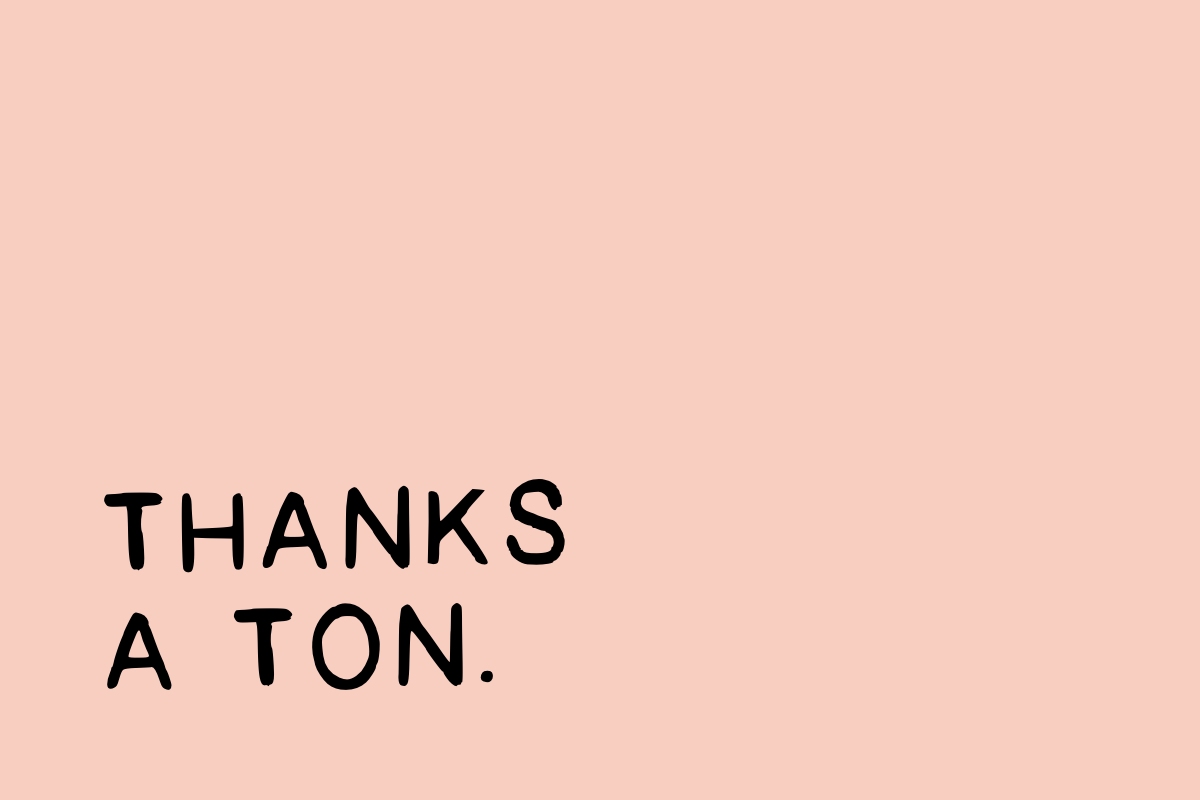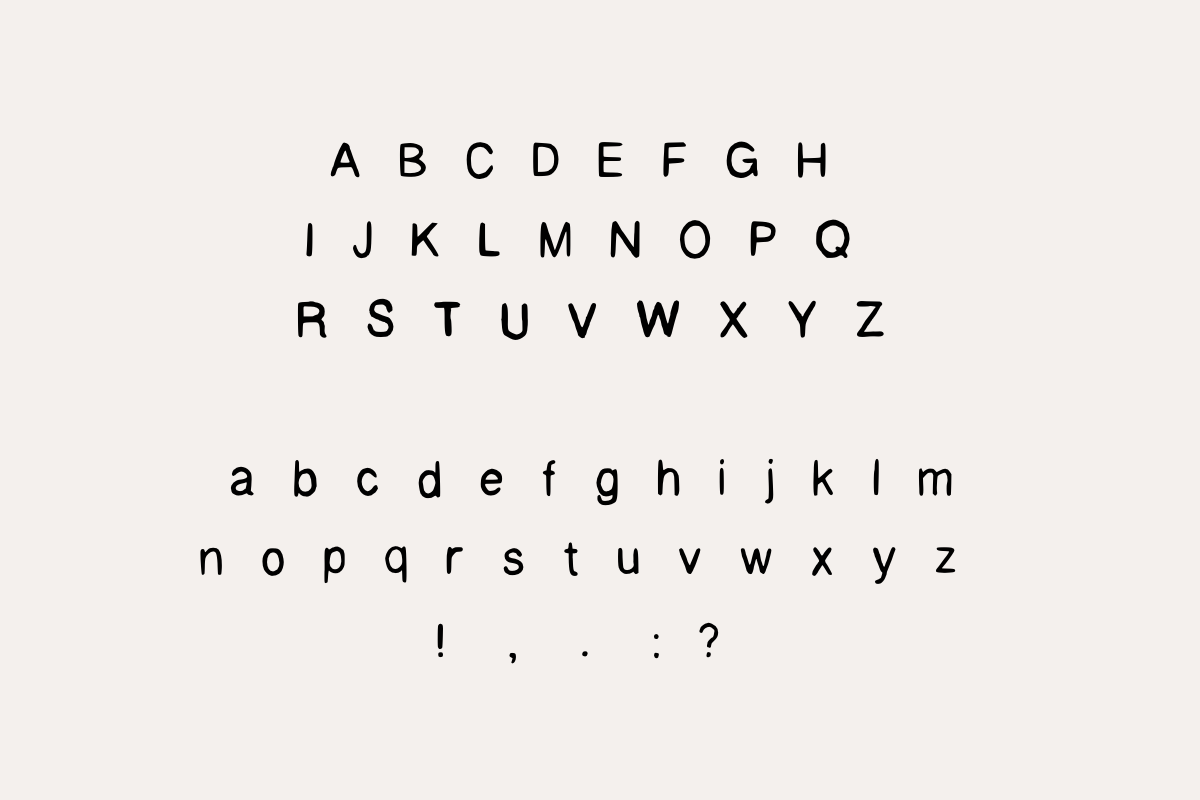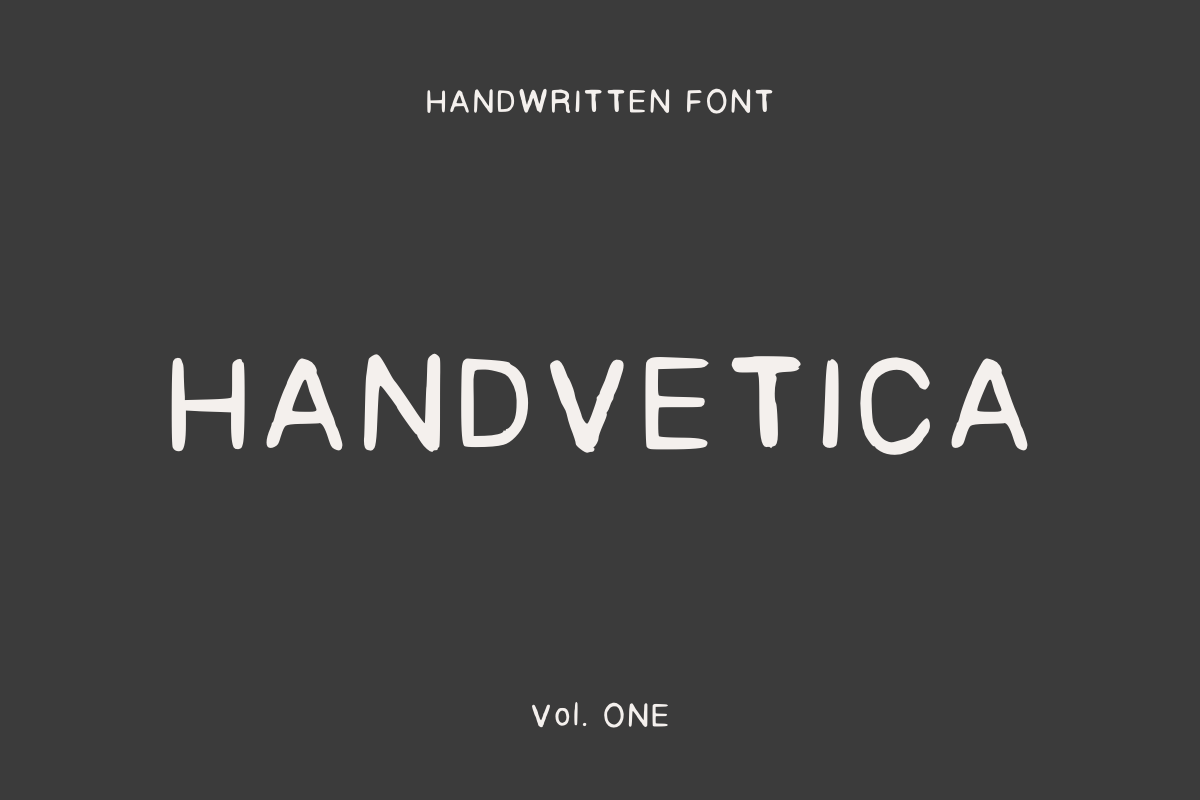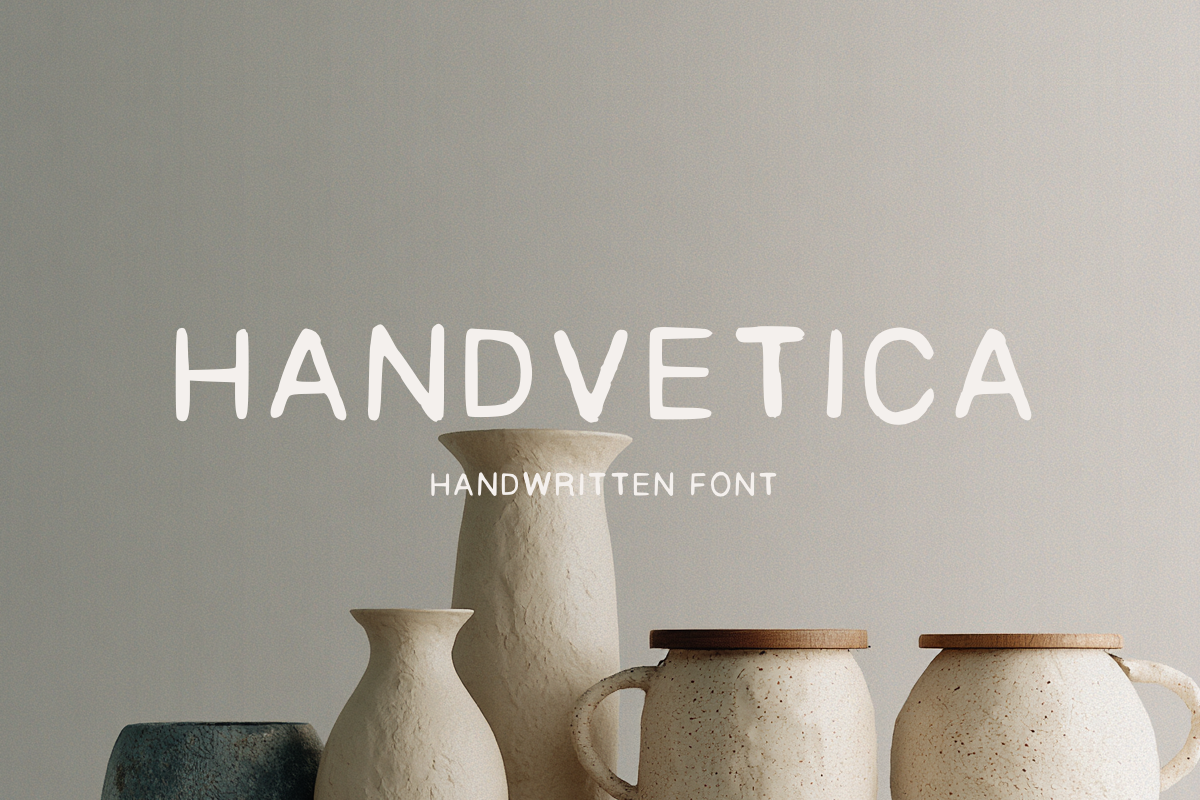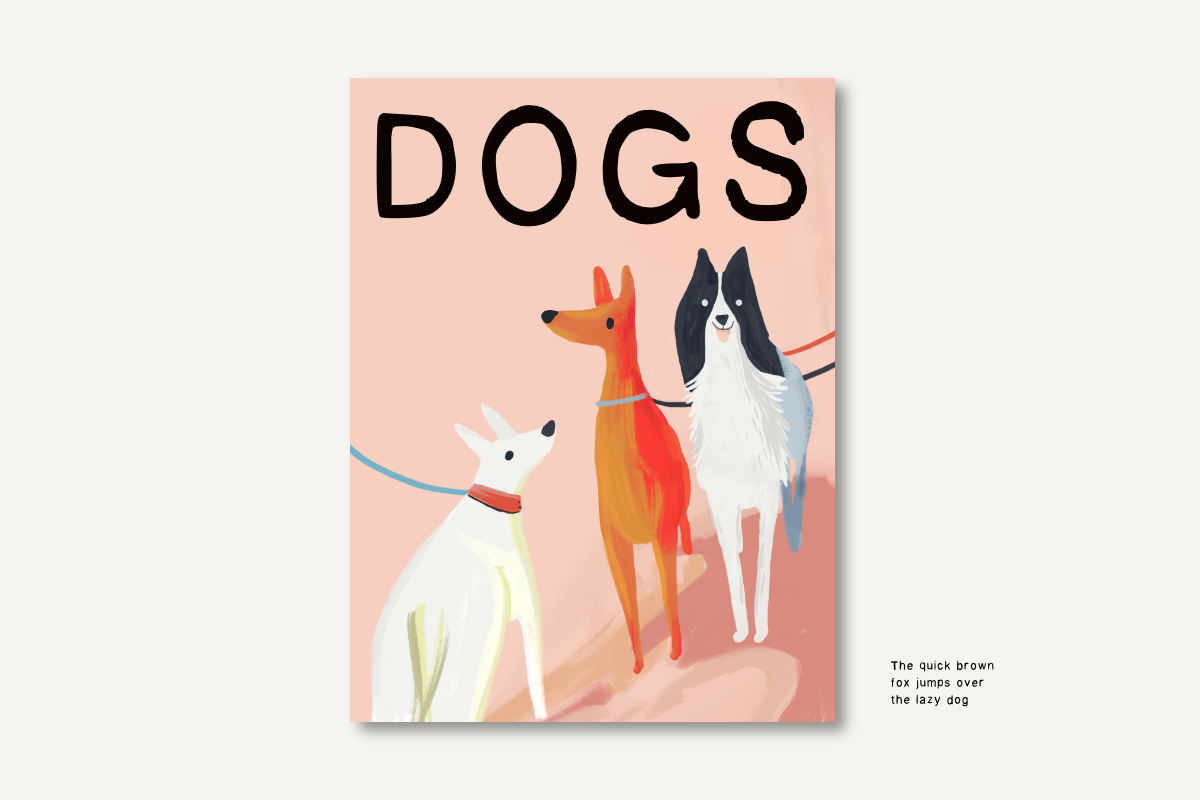
HANDVETICA – Handwritten Font
Handvetica is a playful handwritten display font designed for bold headlines, branding and creative projects.
Inspired by the warmth of handwritten lettering and clean minimalist design, Handvetica combines expressive letterforms with an effortlessly friendly personality. Every character was carefully drawn by hand to create an authentic, imperfect look that's full of charm.
Perfect for posters, packaging, children's products, logos, social media and playful branding, Handvetica is made to stand out in large sizes where its unique personality can truly shine.
Rather than trying to replace a complete text typeface, Handvetica was intentionally designed as a display font for titles, headlines and decorative typography.
26 Uppercase letters (A–Z)
26 Lowercase letters (a–z)
4 Punctuation marks (! , . ?)
56 carefully hand-drawn characters in total.
Handwritten display font
Clean and playful aesthetic
Perfect for headlines and large typography
Easy to read
Hand-drawn letterforms
Great for branding and print